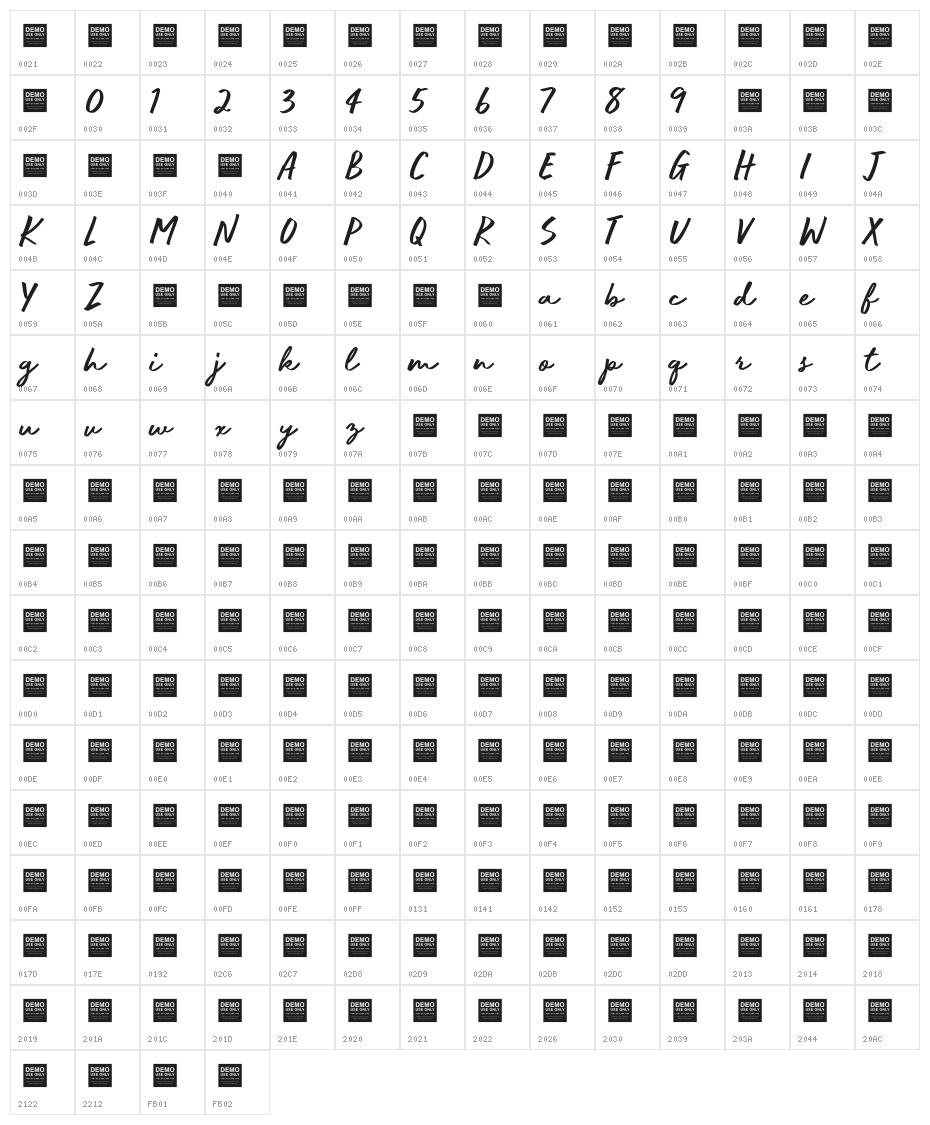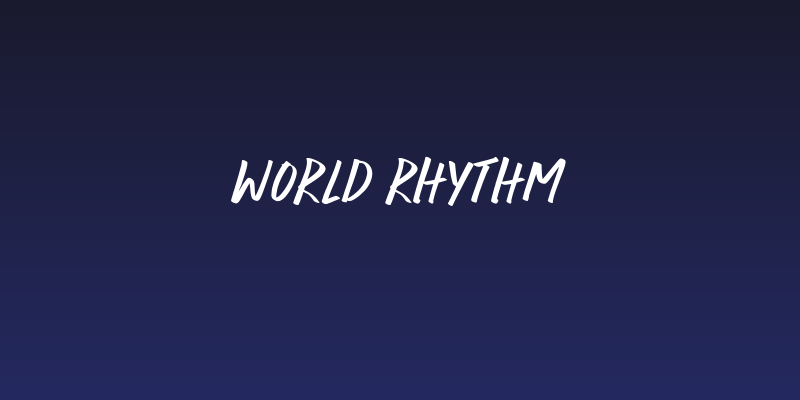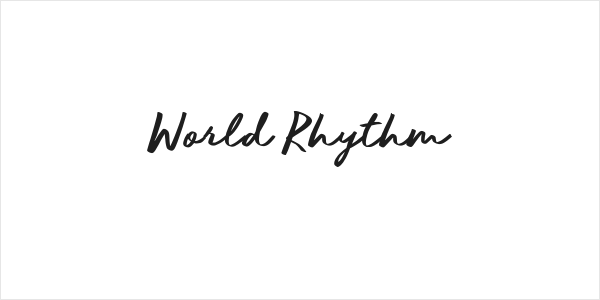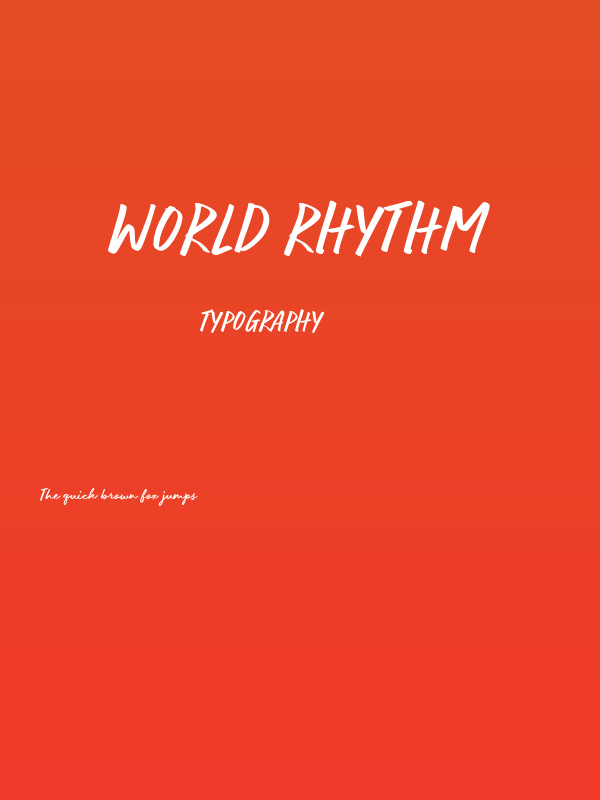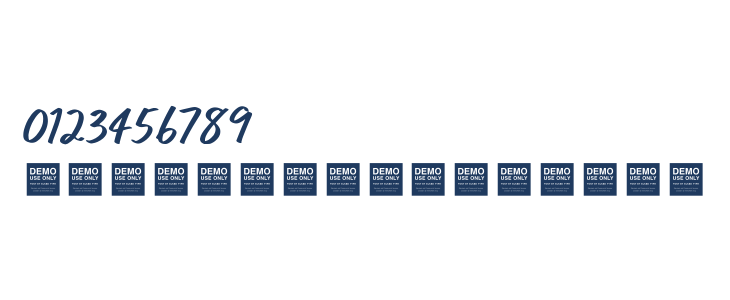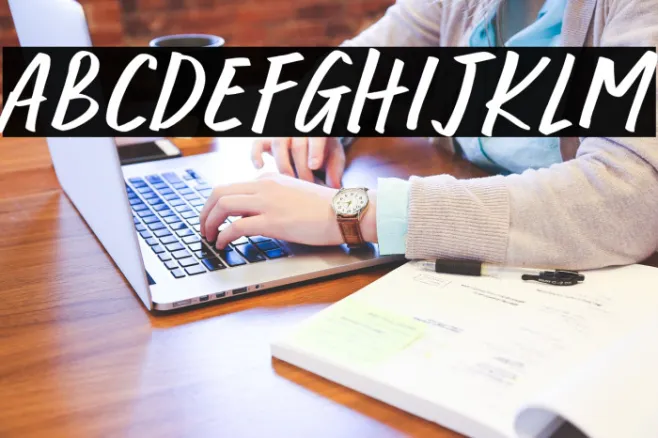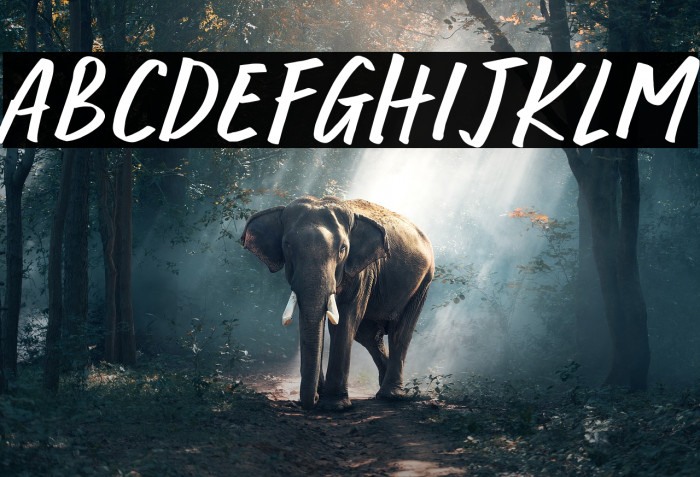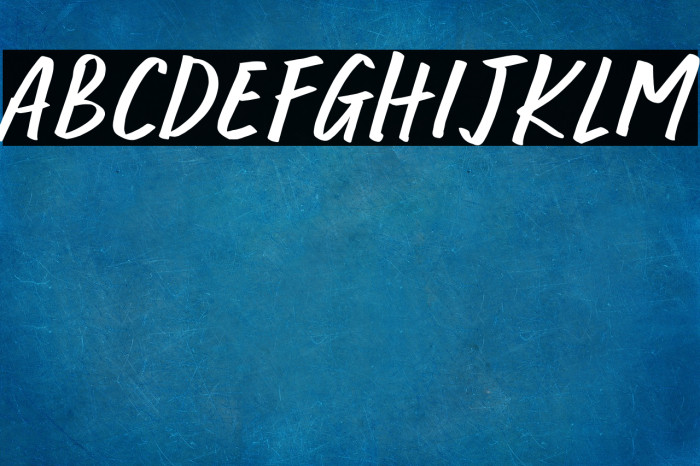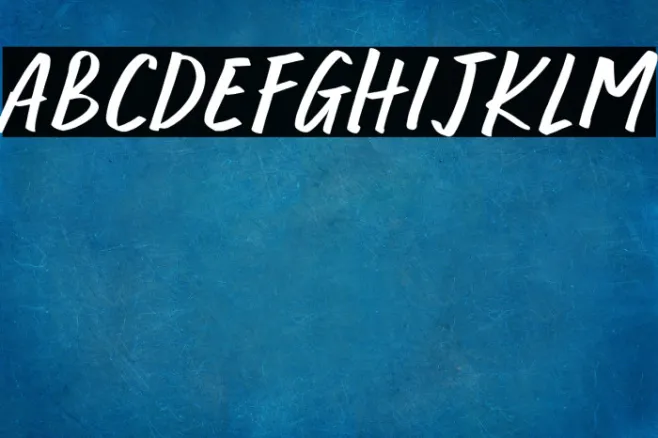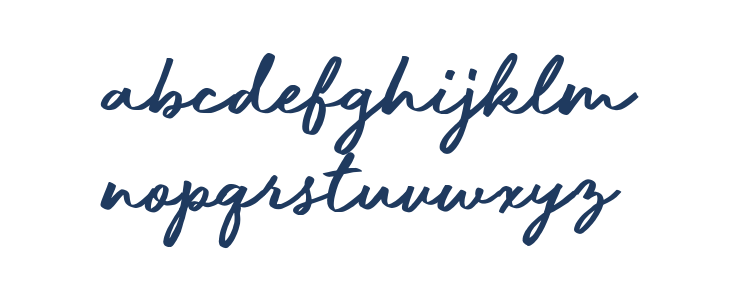
World Rhythm Font
World Rhythm Description
This font features a dynamic and energetic script style, characterized by its fluid and connected letterforms. The uppercase letters are bold and slightly slanted, giving a sense of motion and rhythm. The lowercase letters maintain a consistent flow, enhancing the handwritten feel. The numerals are clear and legible, matching the overall style of the alphabet. This font exudes a casual yet sophisticated vibe, making it suitable for a variety of creative projects.
| Proposed Projects | Ideal for branding, invitations, greeting cards, and social media graphics where a personal touch is desired. |